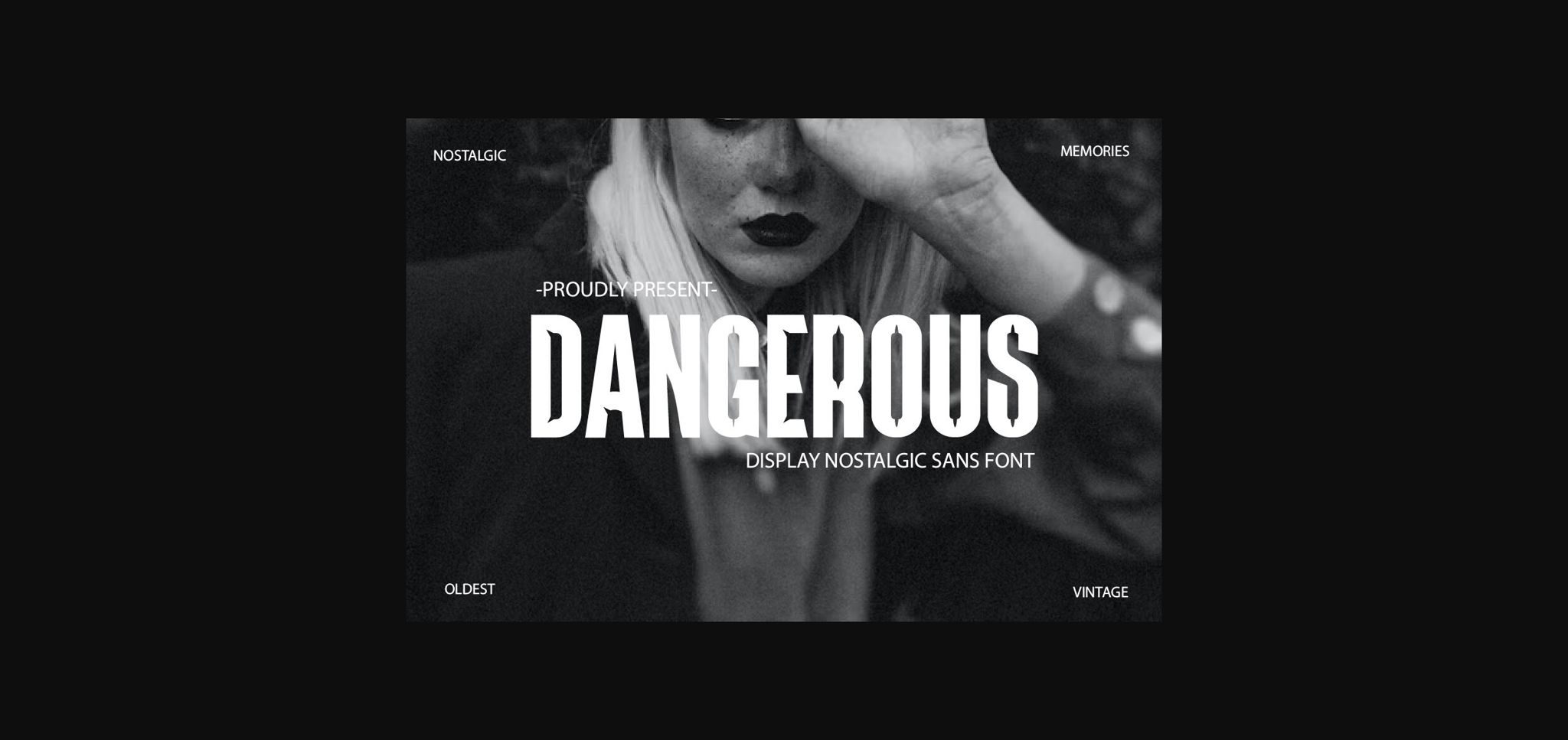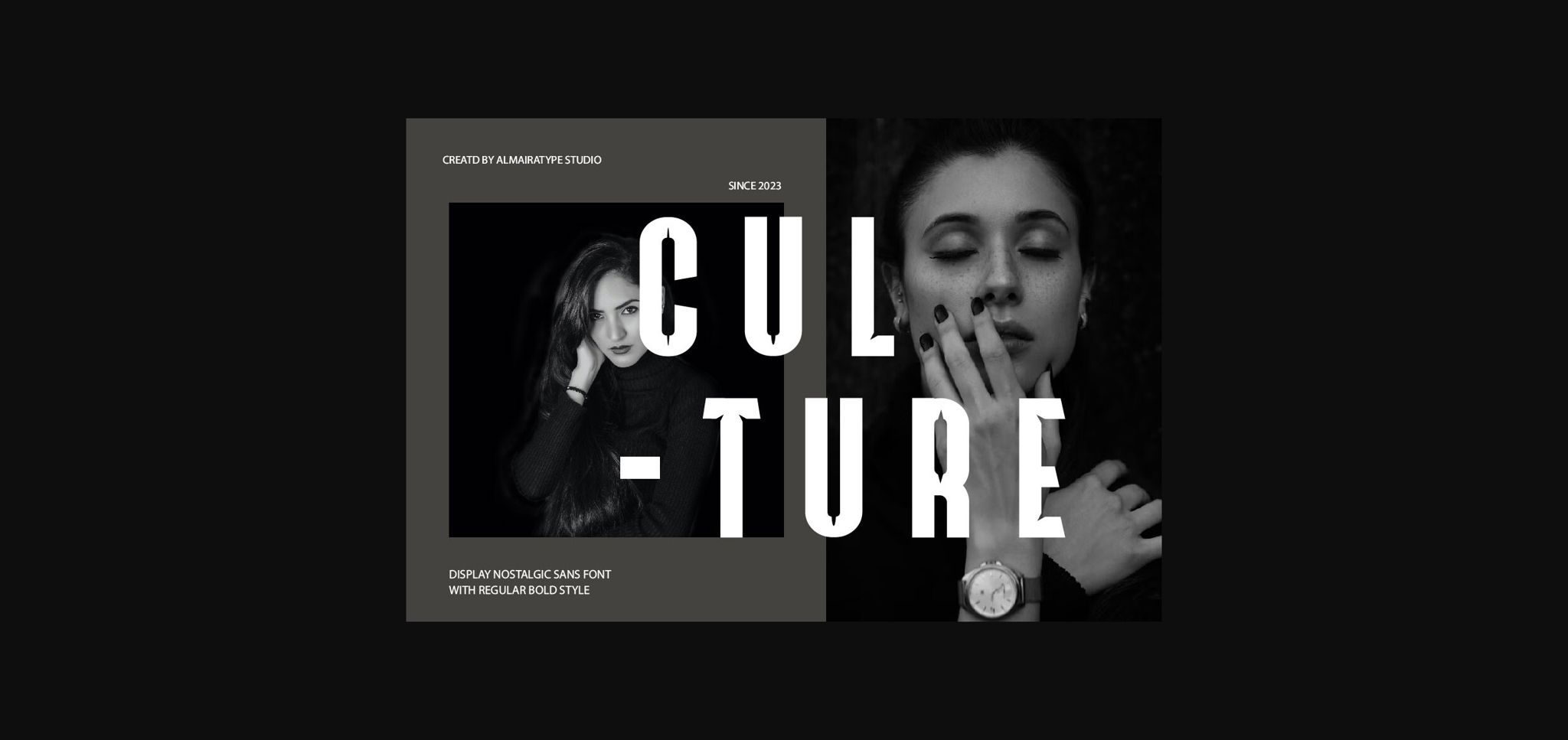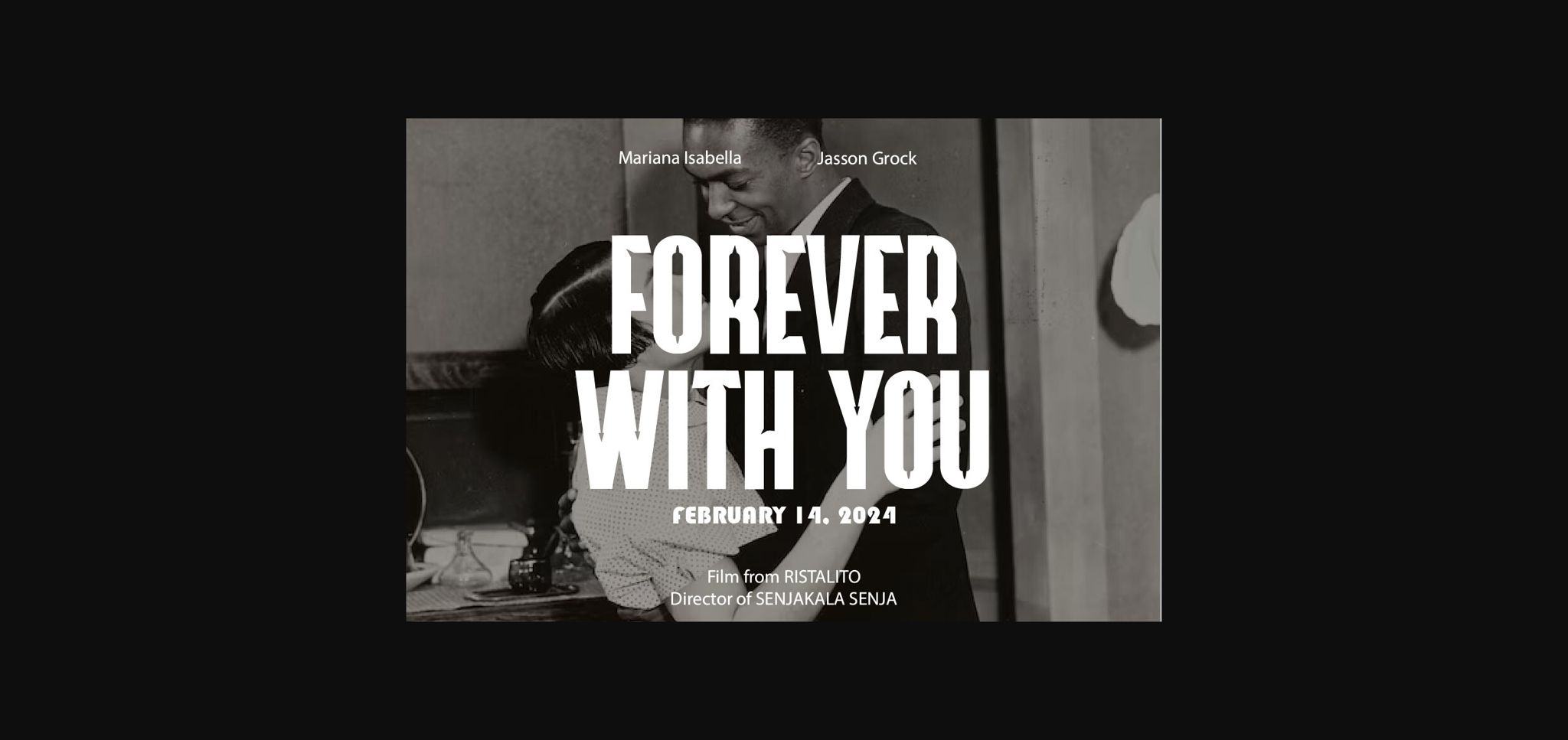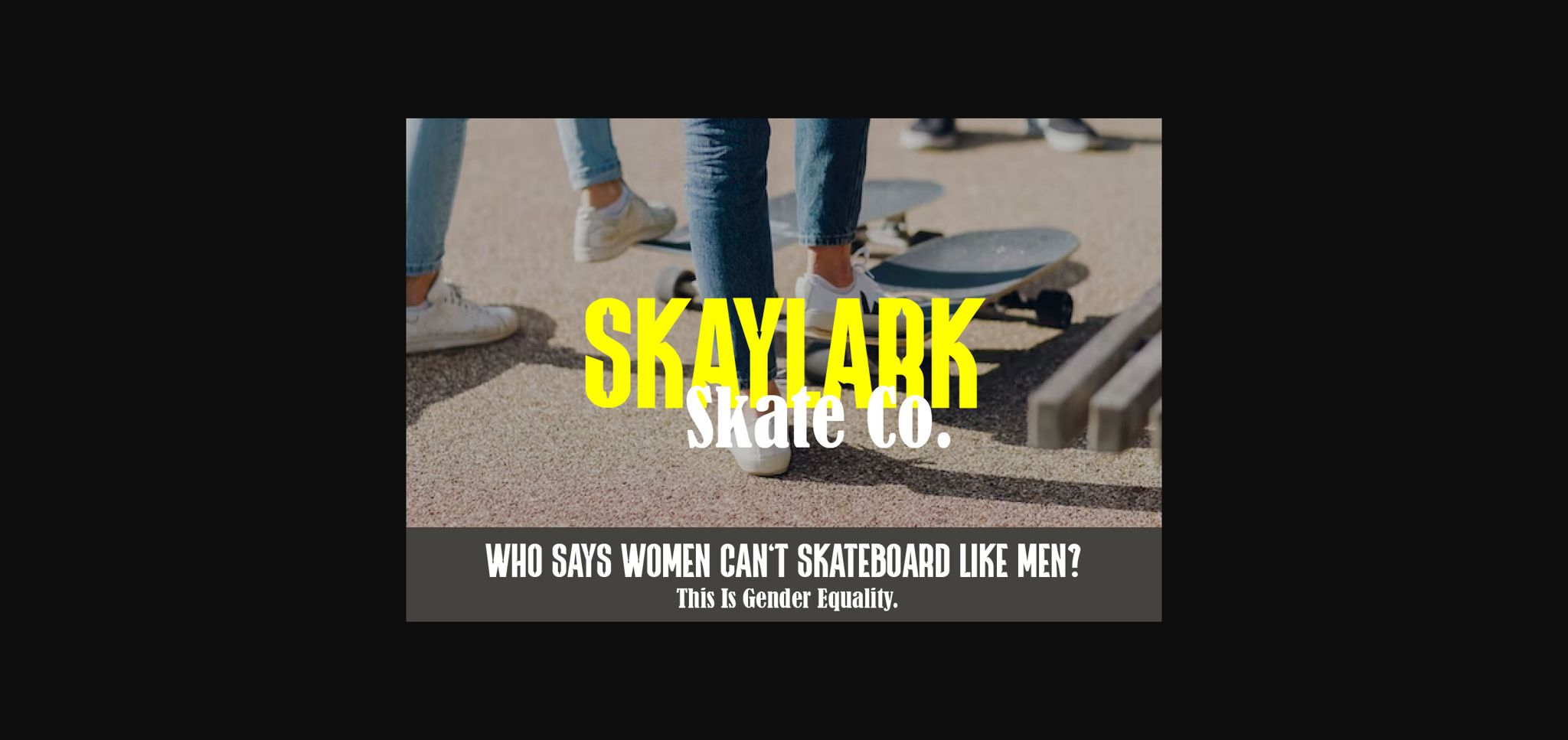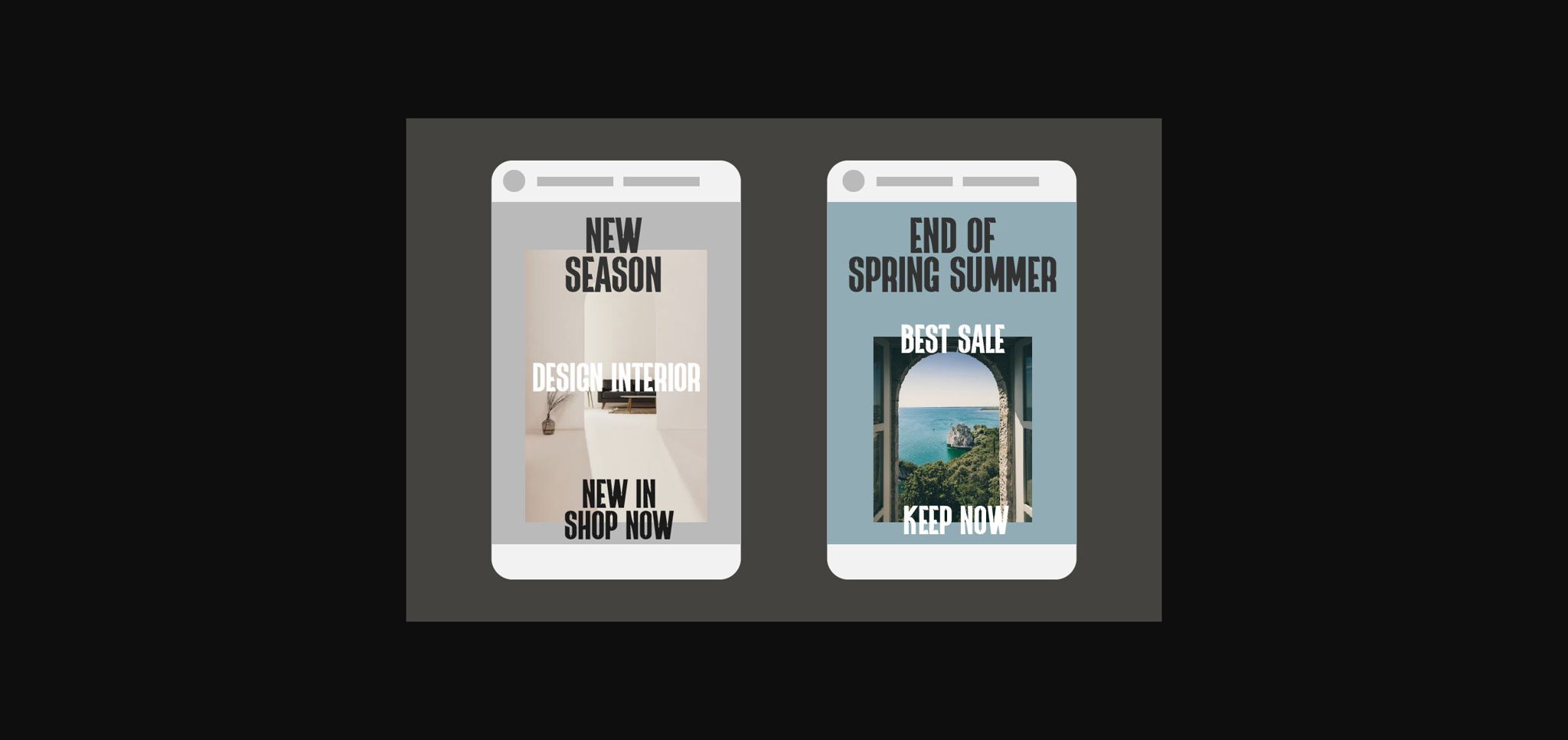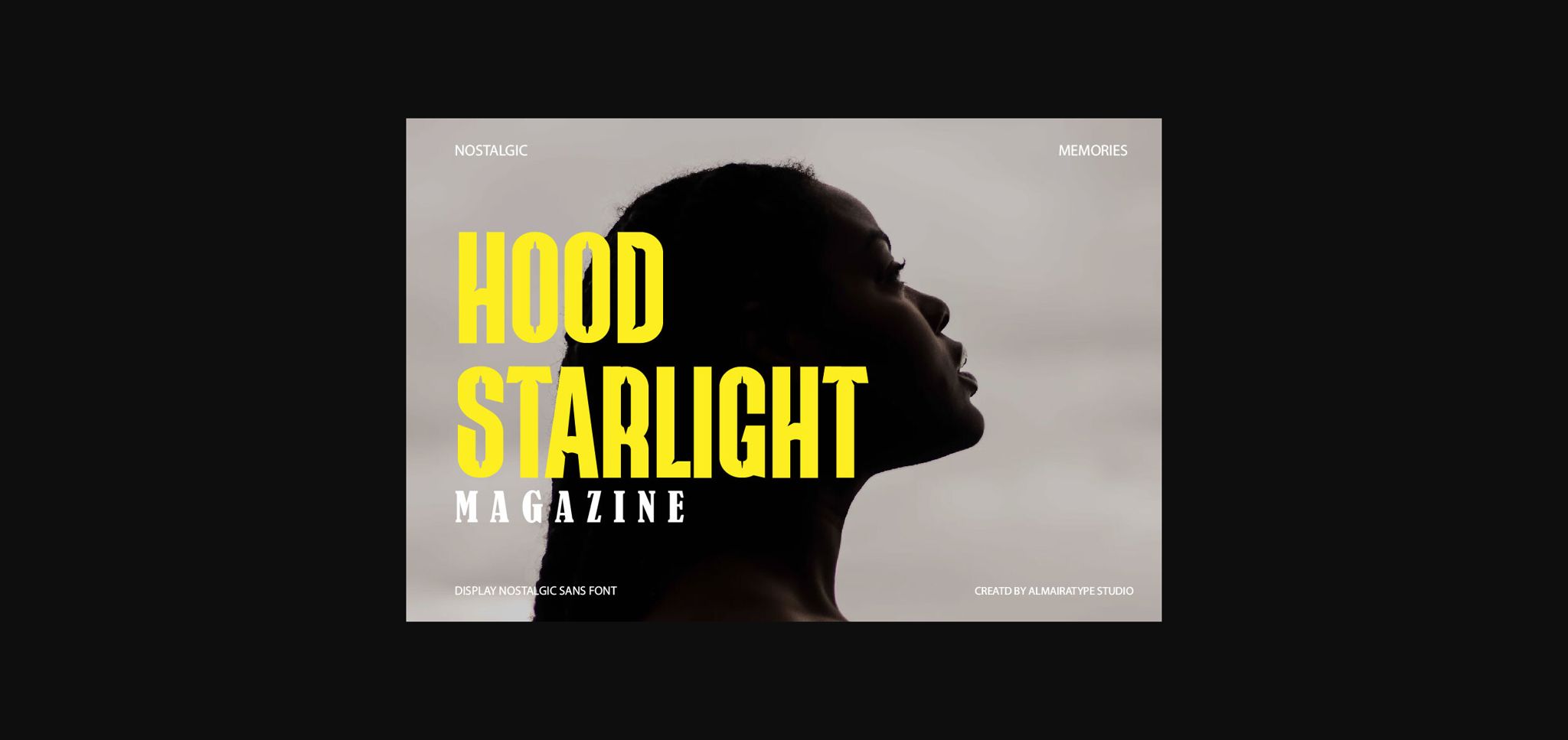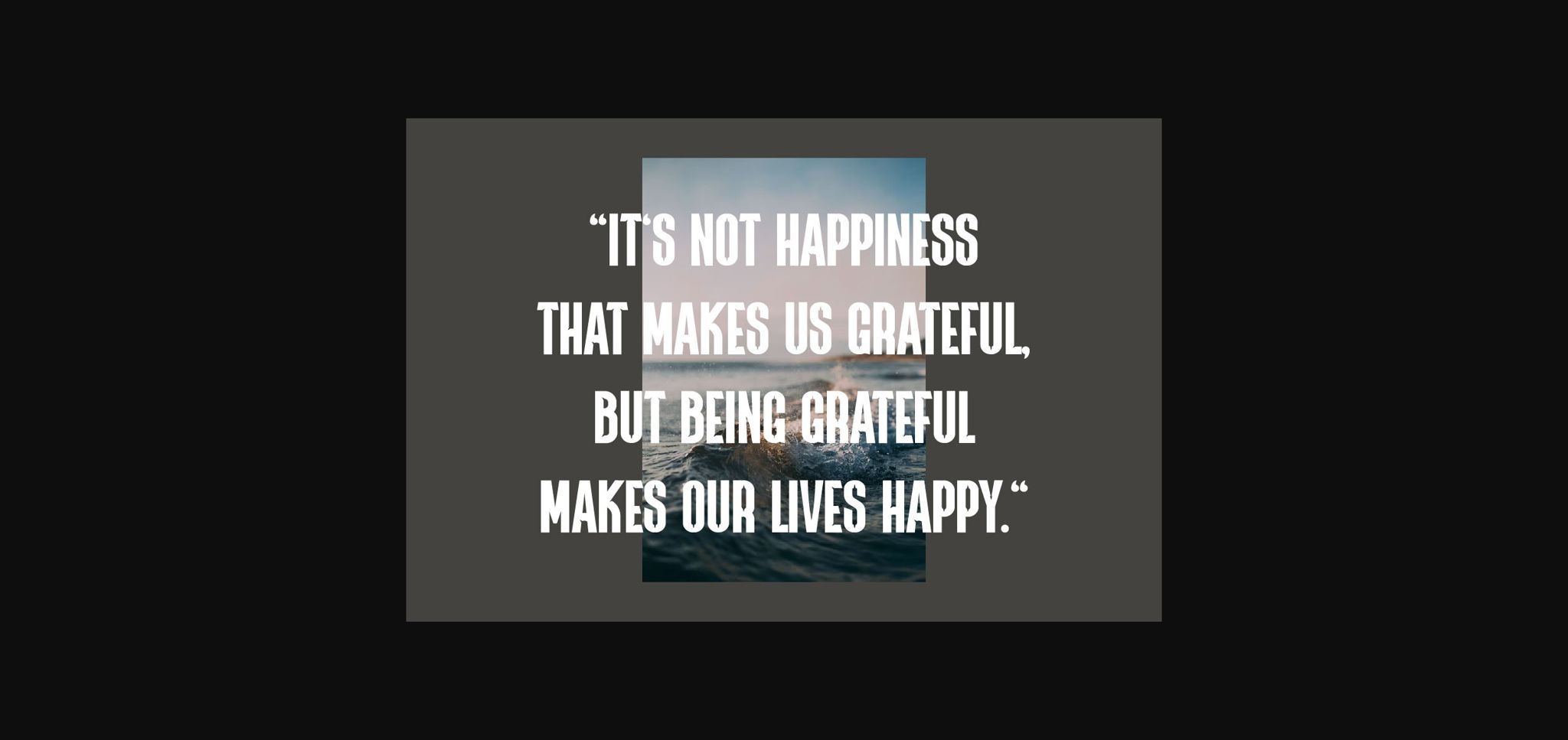
HomeSans Serif FontsDangerous Font Sans Serif Fonts Dangerous Font FacebookXPinterestWhatsApp 1 of 9 ... Dangerous Font Poster 2... Dangerous Font Poster 3... Dangerous Font Poster 4... Dangerous Font Poster 5... Dangerous Font Poster 6... Dangerous Font Poster 7... Dangerous Font Poster 8... Dangerous Font Poster 9... About Dangerous Font Dangerous is a stunning sans serif font. This font gives a nostalgic impression. fonts that can perfect your creative projects such as logos, graphics, branding, business and others DOWNLOAD NOW People also explored Hatching Love Font Diswatika Font Cathaline Font Rusty Frozee Font Hand Ball Font Lovelya Kattrine Font Hermes Font Male Red Bella Canvas 3001 TShirt Mockup East Font 296 0 TagsDangerous Font Previous articleVeteran FontNext articleQlariany Font LEAVE A REPLY Cancel reply Comment: Please enter your comment! Name:* Please enter your name here Email:* You have entered an incorrect email address! Please enter your email address here Website: Save my name, email, and website in this browser for the next time I comment. Personal Use Free Green Farmhouse Personal Use Free Read more about this font Love Heart Personal Use Free Read more about this font Mold Papa Personal Use Free Read more about this font Simple Personal Use Free Read more about this font BLOG Using Fonts in Digital Marketing: Tips to Strengthen Your Brand Identity In the realm of digital marketing, every visual element plays a crucial role in shaping a brand's identity, and fonts are no exception. The... To increase your work productivity, choose the most readable fonts. Best Fonts for YouTube Videos: Make Your Thumbnails Stand Out Free Fonts Risk: Why Free Fonts Can Be Dangerous for Designers